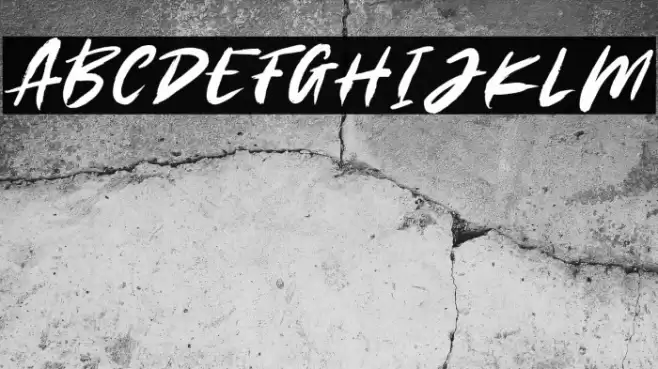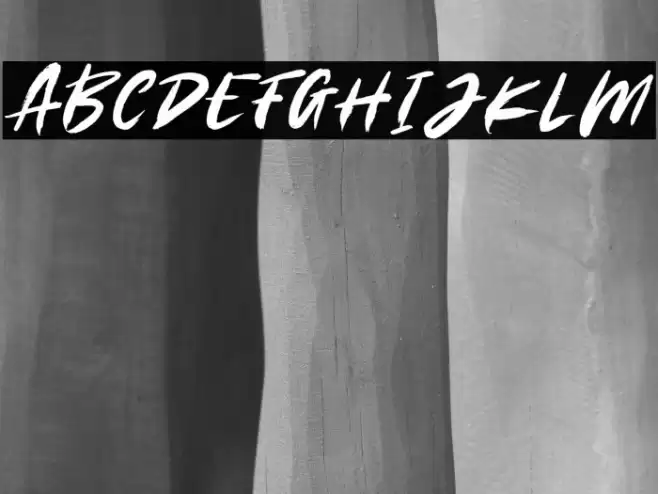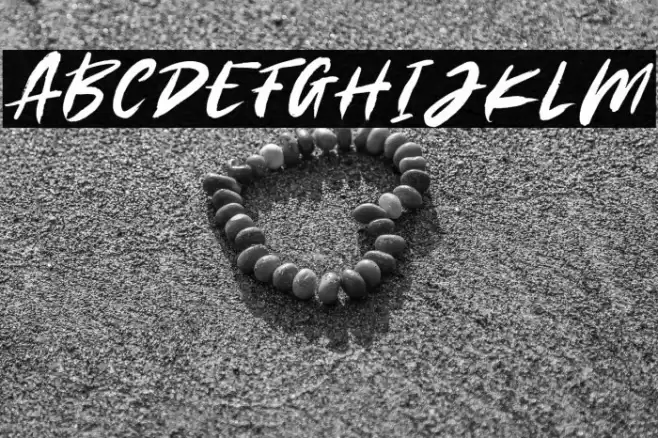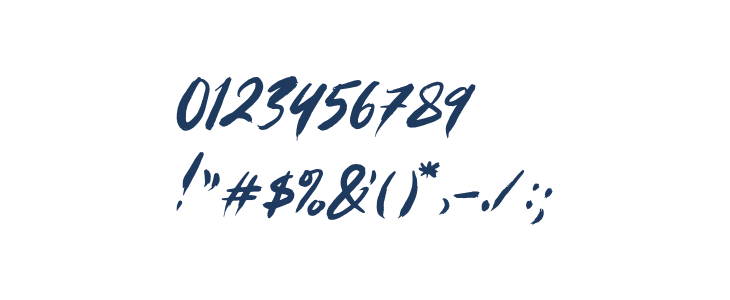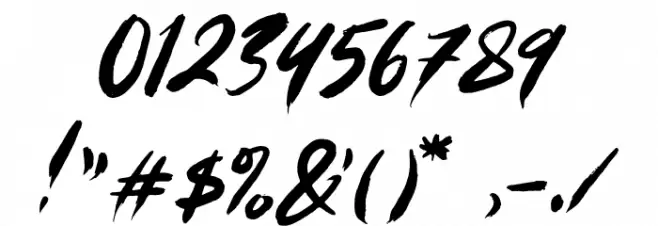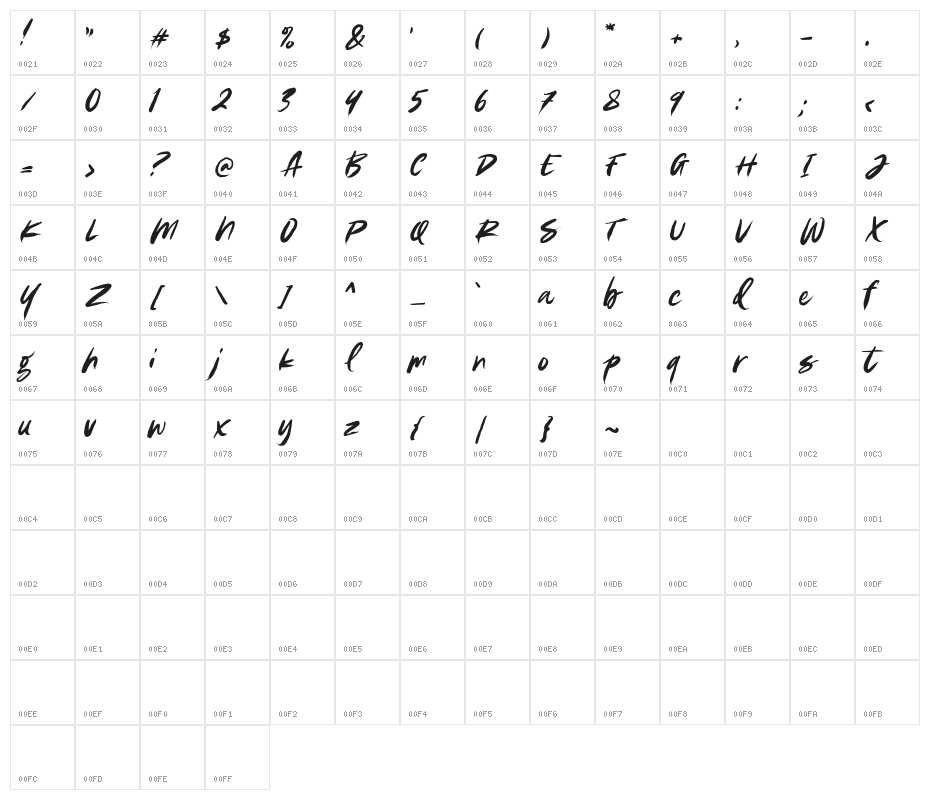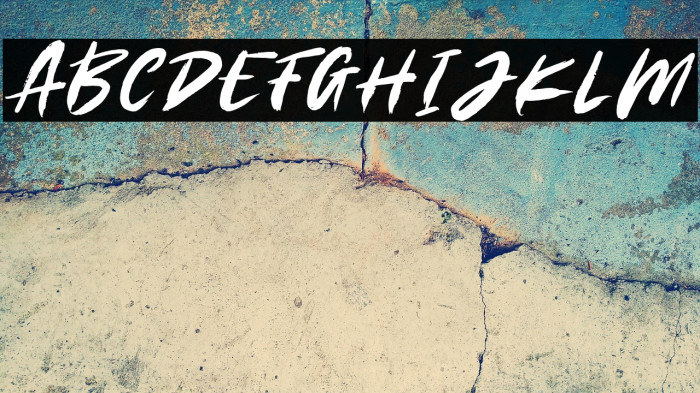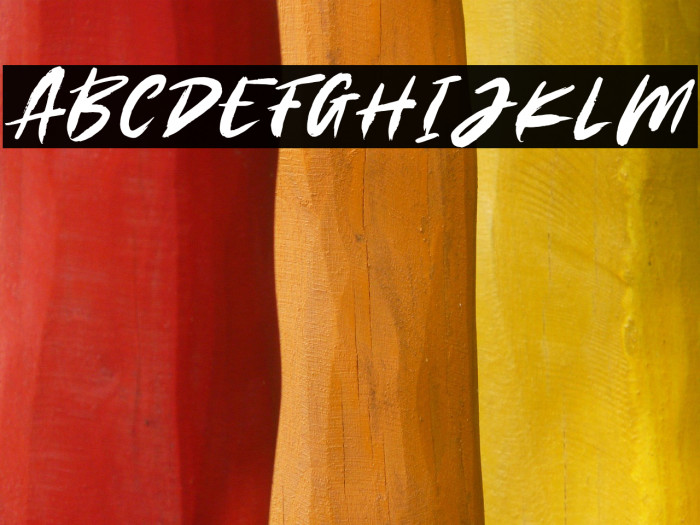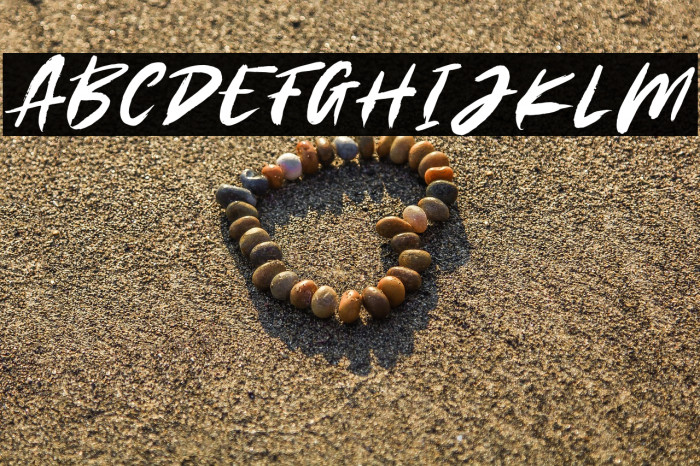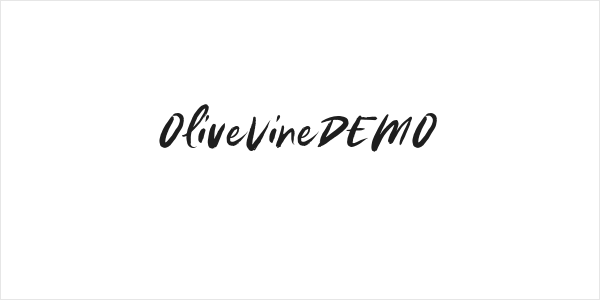
OliveVineDEMO Font
OliveVineDEMO Description
This font features a bold and expressive handwritten style, characterized by its dynamic brush strokes and fluid motion. The letters have a natural, organic feel, with varying thickness that adds a sense of movement and energy. The uppercase and lowercase letters maintain a consistent style, while the numerals and special characters complement the overall aesthetic. The font's design is both artistic and legible, making it suitable for creative projects that require a personal touch.
A bold, expressive handwritten font with dynamic brush strokes from Uncategorized fonts.
- Font: OliveVineDEMO
- Proposed Projects: Ideal for branding, invitations, posters, and artistic projects that require a personal and creative touch.